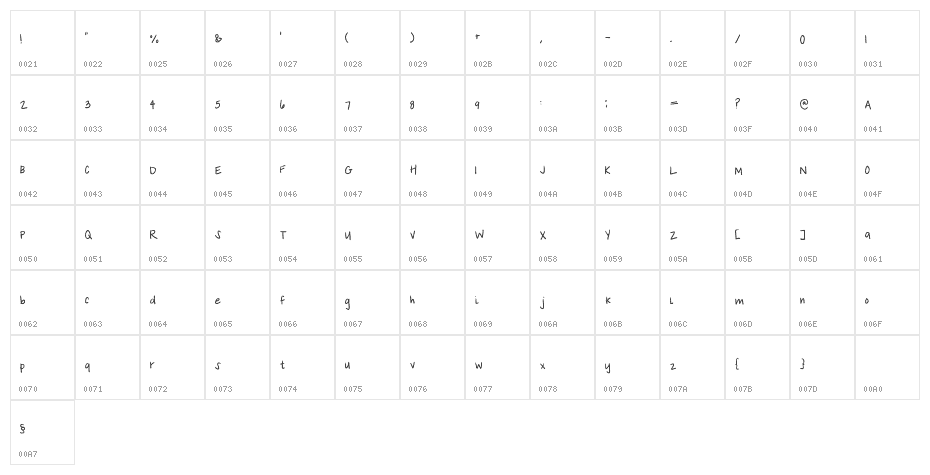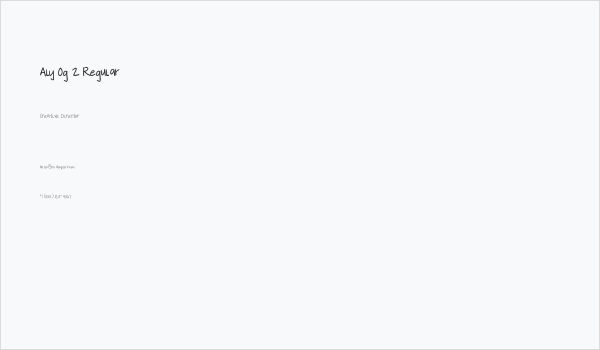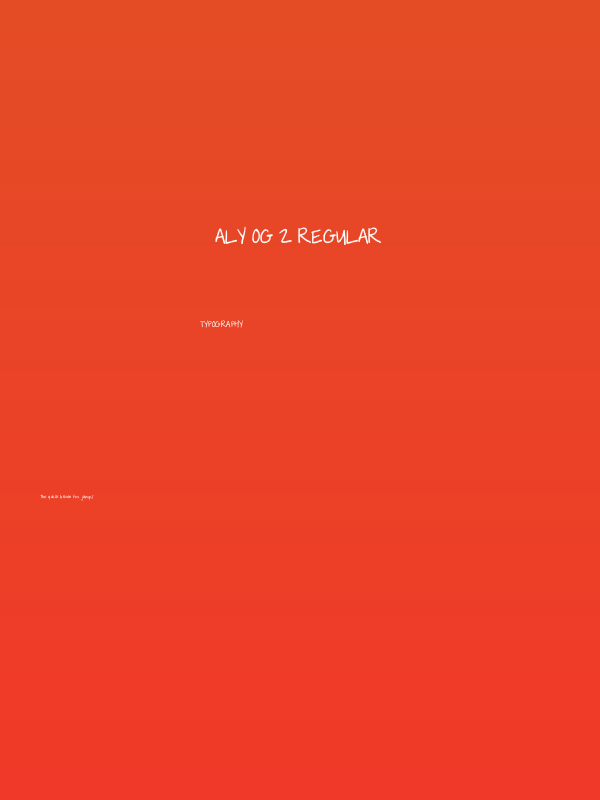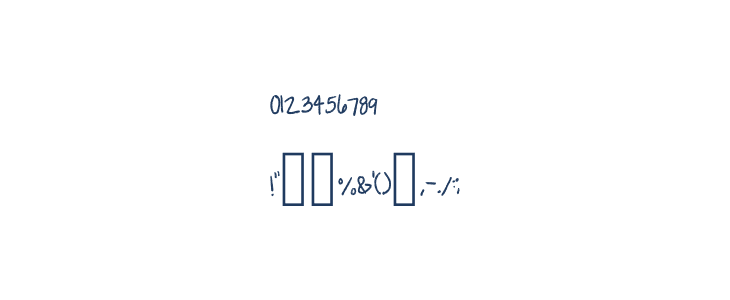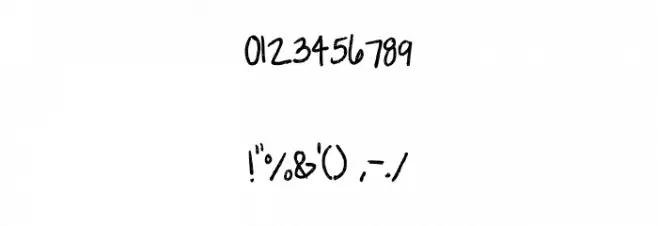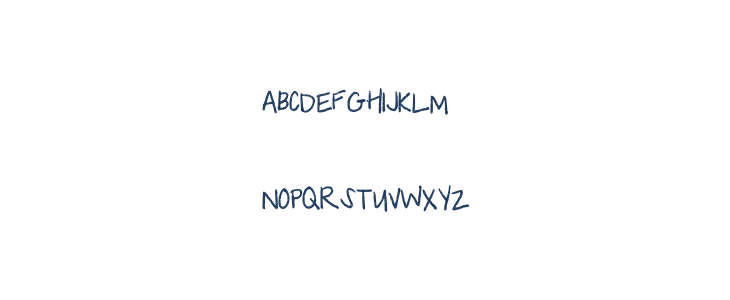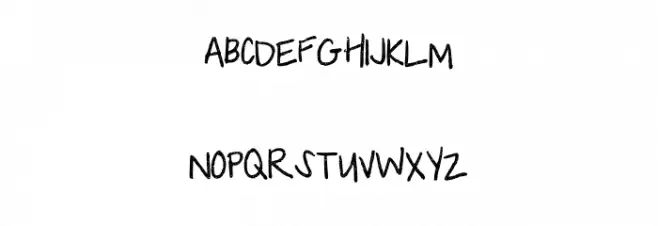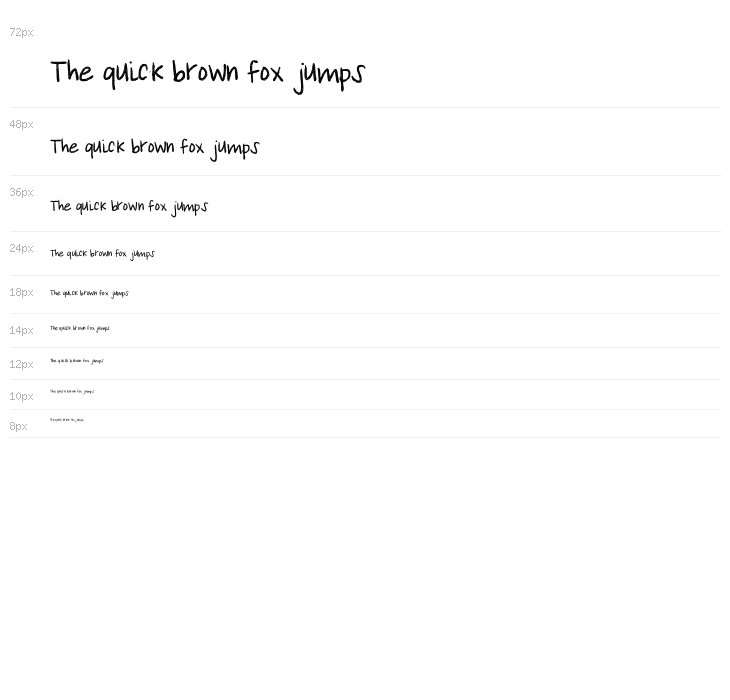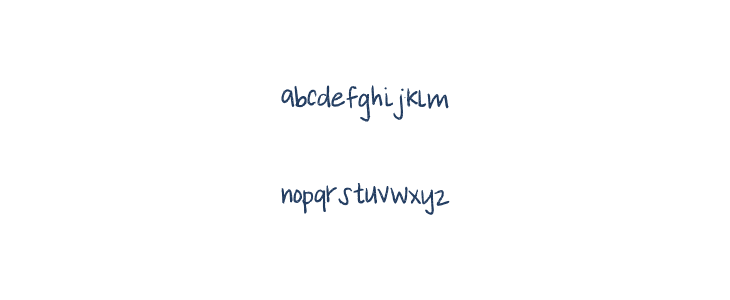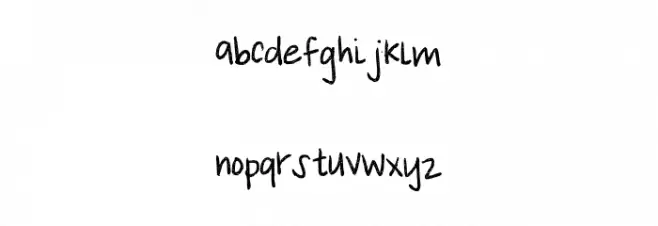
Aly Og 2 Regular Font
Aly Og 2 Regular Description
A playful, handwritten-style font with irregular strokes and a casual, informal appearance. The characters have a natural, slightly uneven baseline and variable stroke thickness, mimicking authentic handwriting.
| Overall Style | Casual, Playful, Informal |
| Use Case | Headlines, Short text, Quotes, Informal notes |
| Proposed Projects | Children’s books, greeting cards, informal posters, personal branding, social media graphics. |